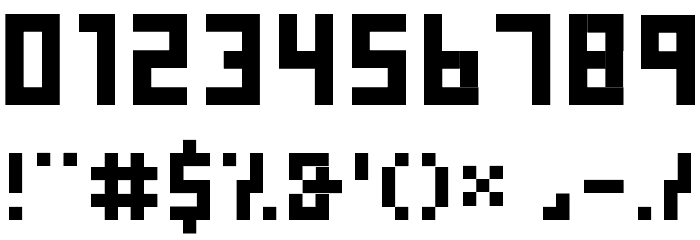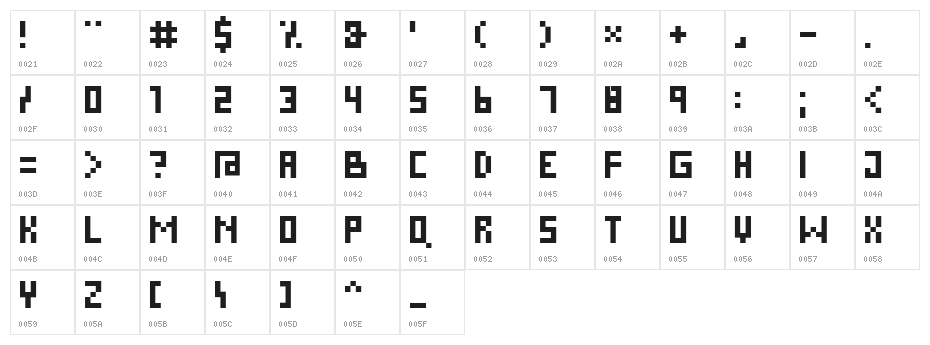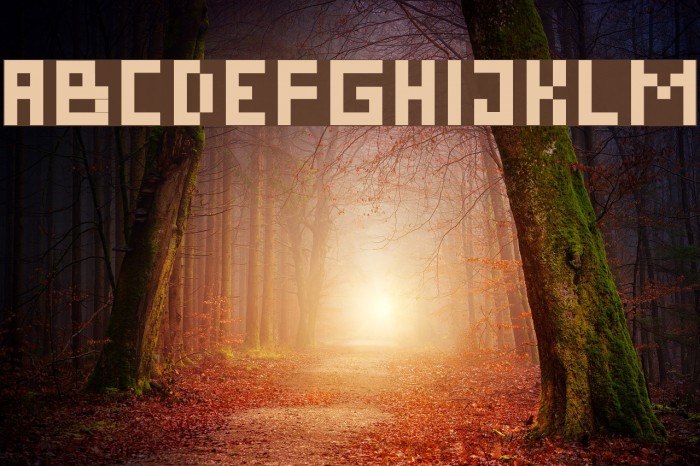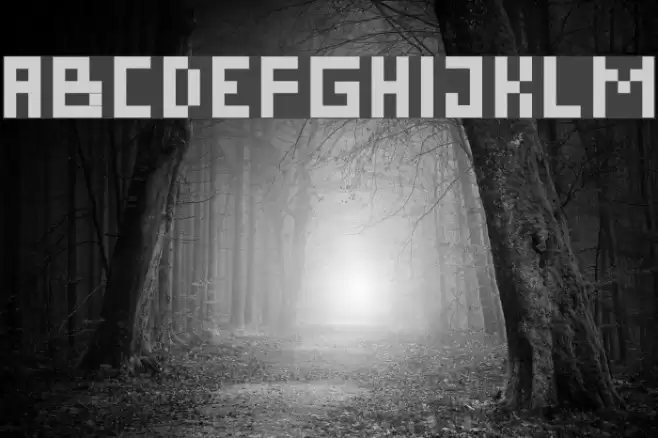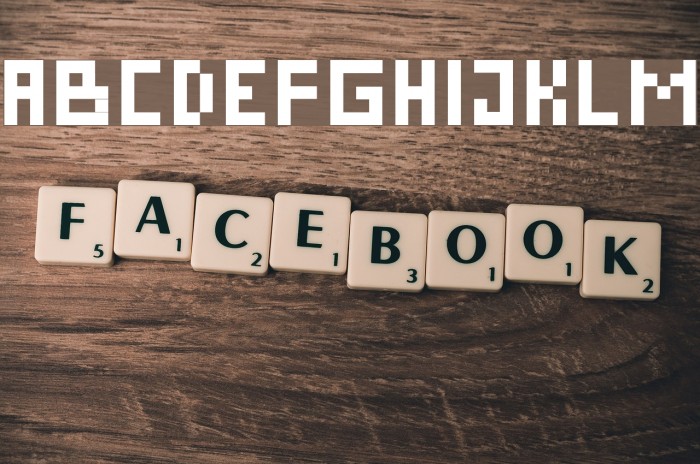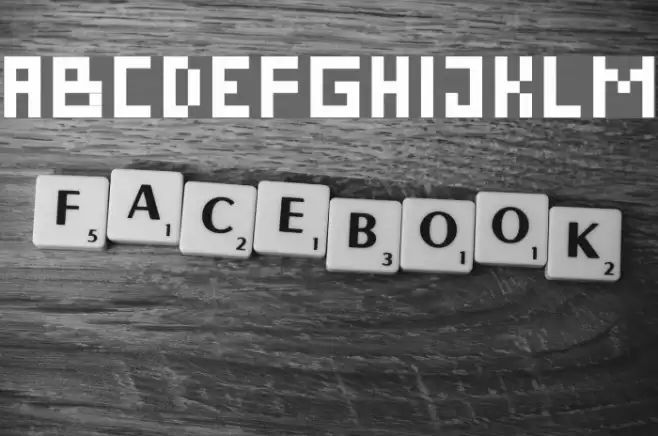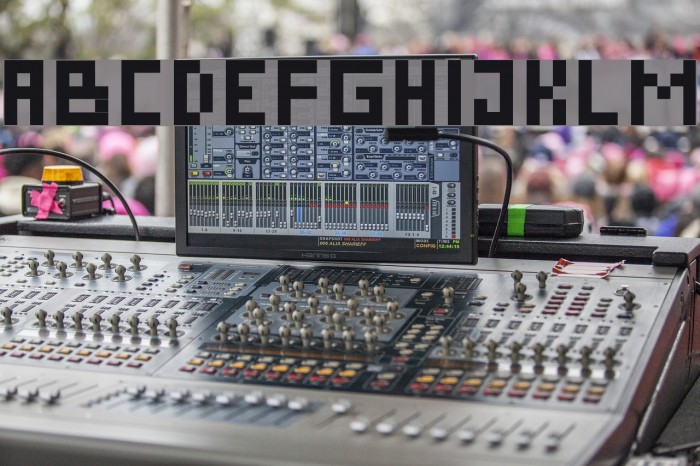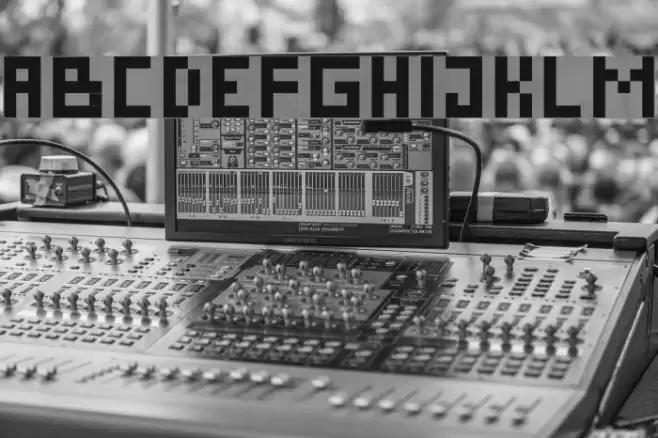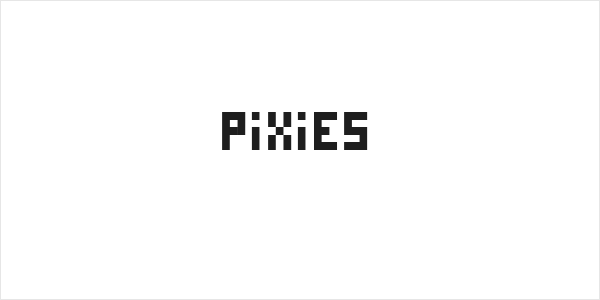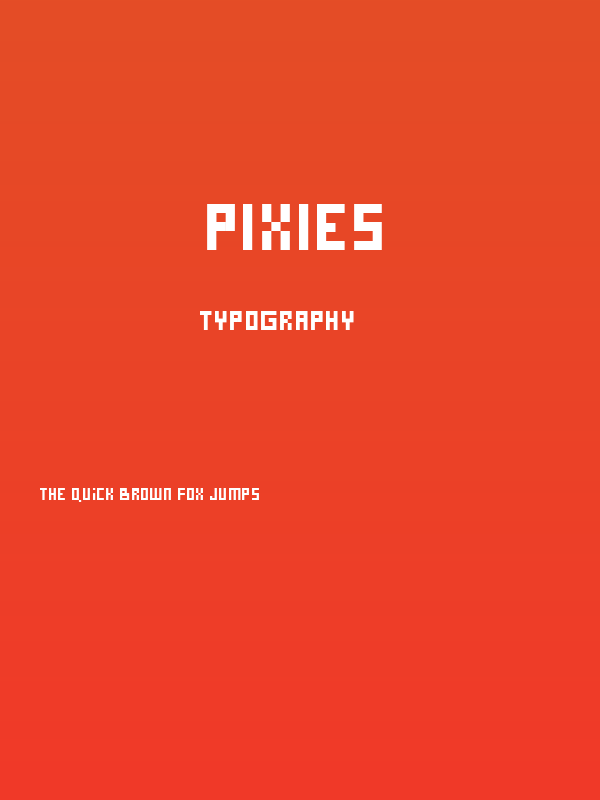
Pixies Font
Pixies Description
This font exhibits a bold, geometric style with a pixelated, blocky appearance reminiscent of early digital or arcade game typography. Each character is constructed with sharp, angular lines and uniform stroke widths, creating a cohesive and structured look. The uppercase and lowercase letters maintain a consistent height, contributing to a monospaced feel, although the font is not strictly monospaced. The numerals and special characters follow the same design principles, ensuring visual harmony across all glyphs. This font's distinct style makes it ideal for projects that require a retro or tech-inspired aesthetic.
Overall StyleRetro, Digital
Proposed ProjectsIdeal for video game design, tech-themed posters, retro branding, and digital art projects.